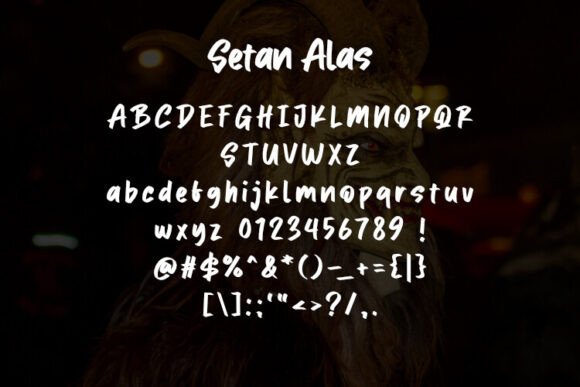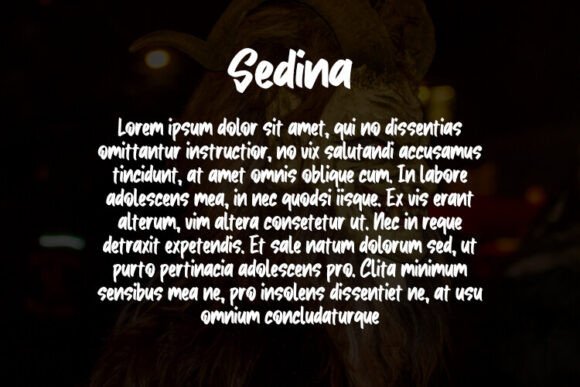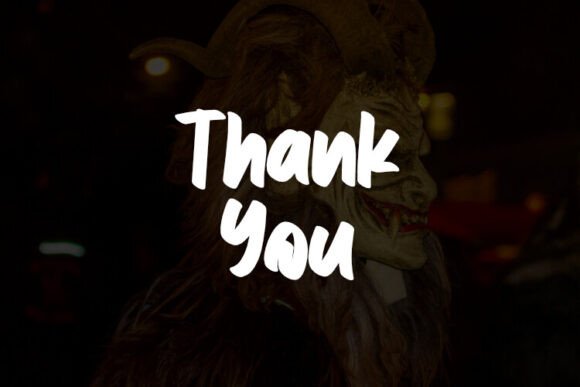
Introduction to Setan Alas Font
Have you ever stared at a blank design canvas, waiting for inspiration to strike? For designers, those moments can be both thrilling and intimidating. But what if you had the perfect tool to spark your creativity and bring your ideas to life? Enter the Setan Alas Font, a game-changing design resource that’s about to become your new favorite companion.
With its unique blend of character and versatility, the Setan Alas Font is the perfect addition to any creative project. Whether you’re working on apparel design, t-shirt customization, or any other high-quality design, this font is sure to elevate your work. And the best part? It’s universally compatible with all design software, making it a seamless fit for your workflow.
Key Features of Setan Alas Font
- Unique, handcrafted design that can be used as a design resource for creative projects
- Perfect for use in logos, branding, and other creative projects that require a distinctive and eye-catching font
Honest Review: Setan Alas Font
I recently stumbled upon the Setan Alas Font while searching for design resources for my creative project. I must say, it’s been a game-changer.
- High-quality font with a unique, mysterious vibe.
- Works well in a range of creative projects, from horror-themed designs to minimalist art.
One of the standout features of the Setan Alas Font is its versatility. I’ve used it for everything from print designs to digital graphics, and it always adds a touch of sophistication.
- Some users may find the font’s mysterious vibe too intense for certain designs.
- The font is only available in a limited number of weights and styles.
Overall, I’m thoroughly impressed with the Setan Alas Font. Its high quality and unique design make it a valuable addition to any designer’s toolkit.
Tips for Getting the Most Out of Setan Alas Font
To get the most out of Setan Alas Font, use it with a transparent background to create a sleek and modern design. You can also pair it with other high-quality fonts to create a unique and creative look.
Setan Alas Font is commonly used in logo designs, social media graphics, and brochures. It’s also a great choice for creating invitations, menus, and other print materials.